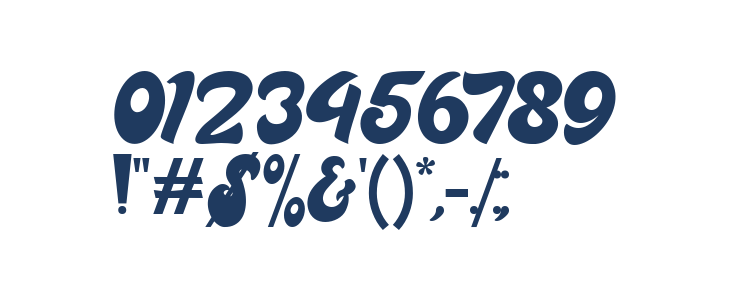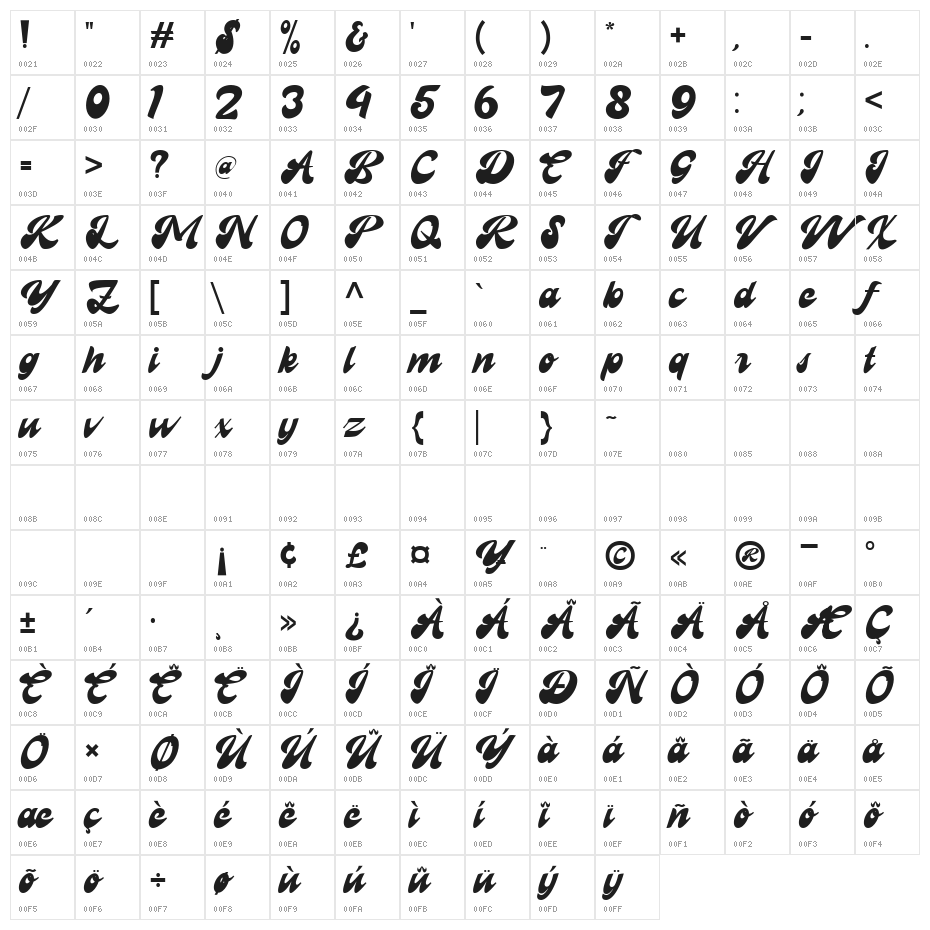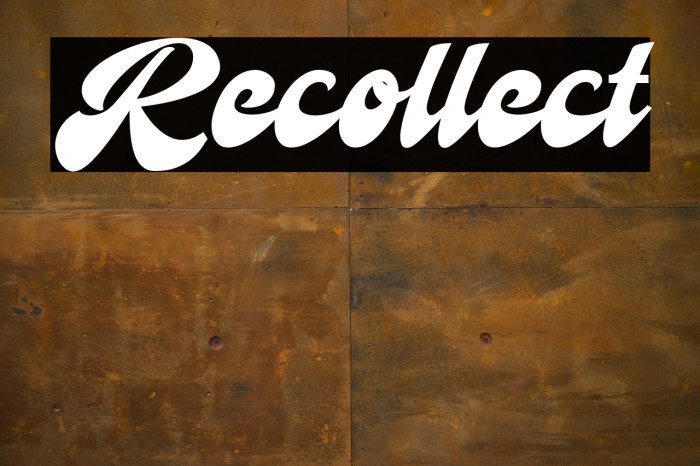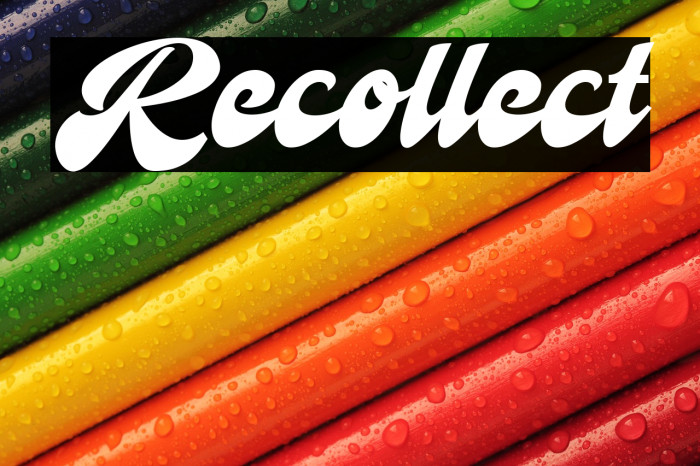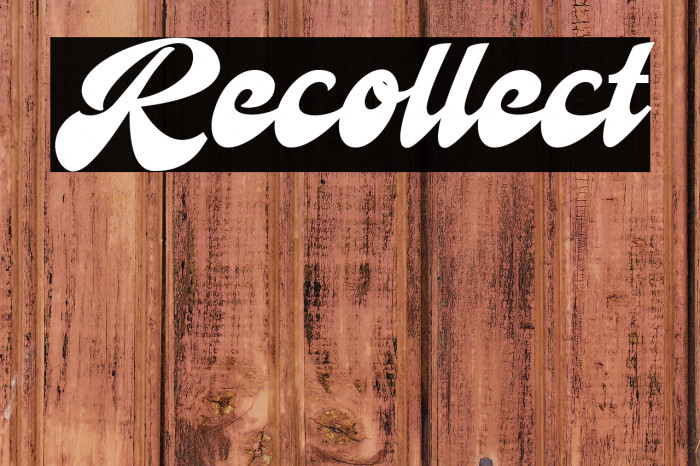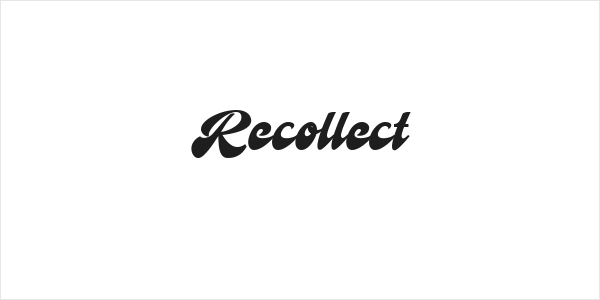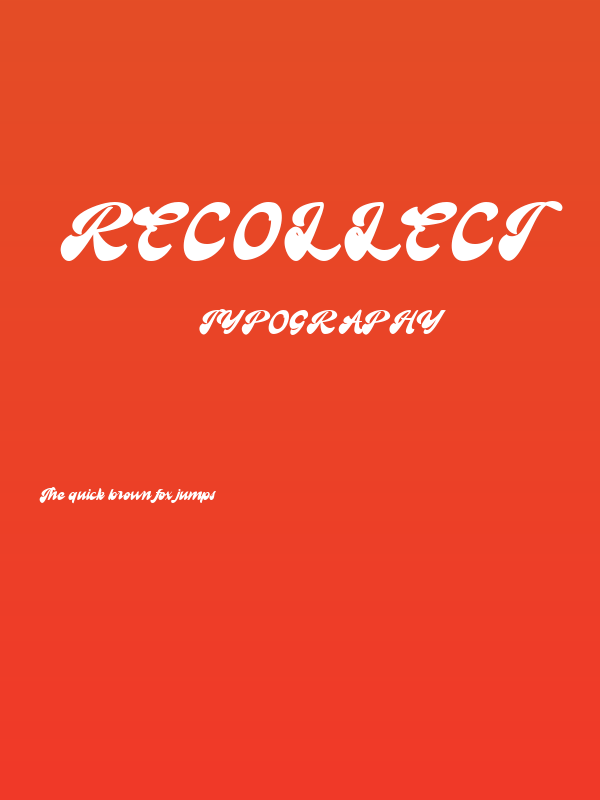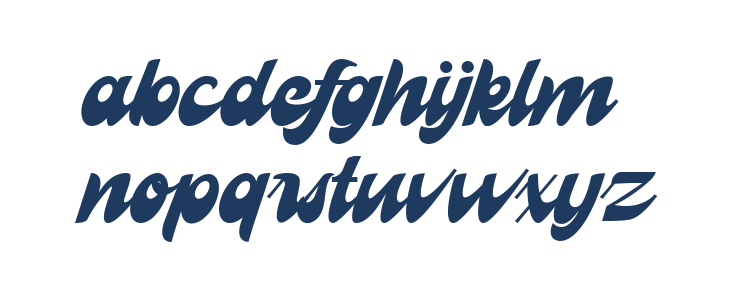
Recollect Font
Recollect Description
This font features a bold and expressive script style with a strong emphasis on fluidity and movement. The characters are connected, creating a sense of continuity and flow, which is characteristic of cursive handwriting. The strokes are thick and rounded, giving the font a robust and dynamic appearance. The uppercase letters are particularly striking, with dramatic flourishes and loops that add a touch of elegance and flair. The lowercase letters maintain the same boldness, ensuring consistency throughout the text. The numbers and special characters are designed to match the overall style, making them suitable for a variety of uses. This font is ideal for projects that require a personal and artistic touch, such as invitations, branding, and creative designs.
Use CaseLogos, Headlines, Creative designs
Proposed ProjectsIdeal for invitations, branding, creative designs, and any project requiring an artistic touch.